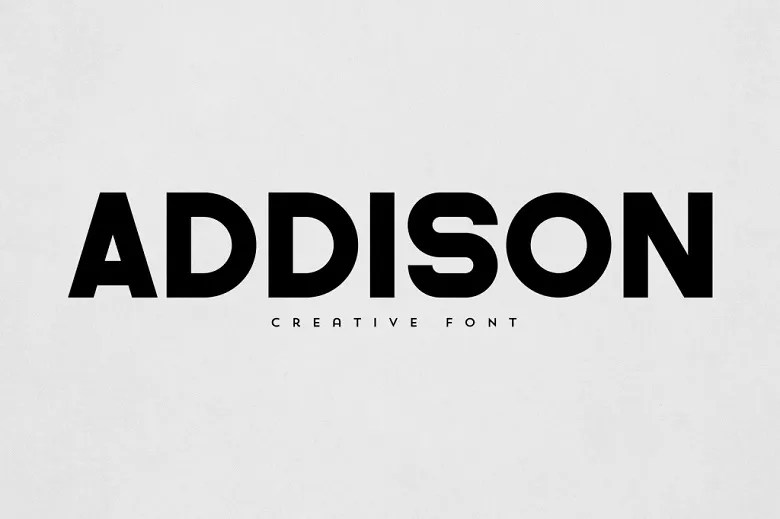
Addison Font
Addison is a beautifully designed and highly flexible sans serif font that guarantees a special touch to your text. Its captivating style enhances logos, branding, headlines, and plain text, making it a versatile choice for various applications. Addison is perfect for branding projects, home décor, textile designs, packaging, magazines, headers, or as stylish text on images.
Its elegant and adaptable design ensures that your work stands out with a polished and professional appearance. Ideal for both personal and professional use, Addison brings a unique charm to any project.